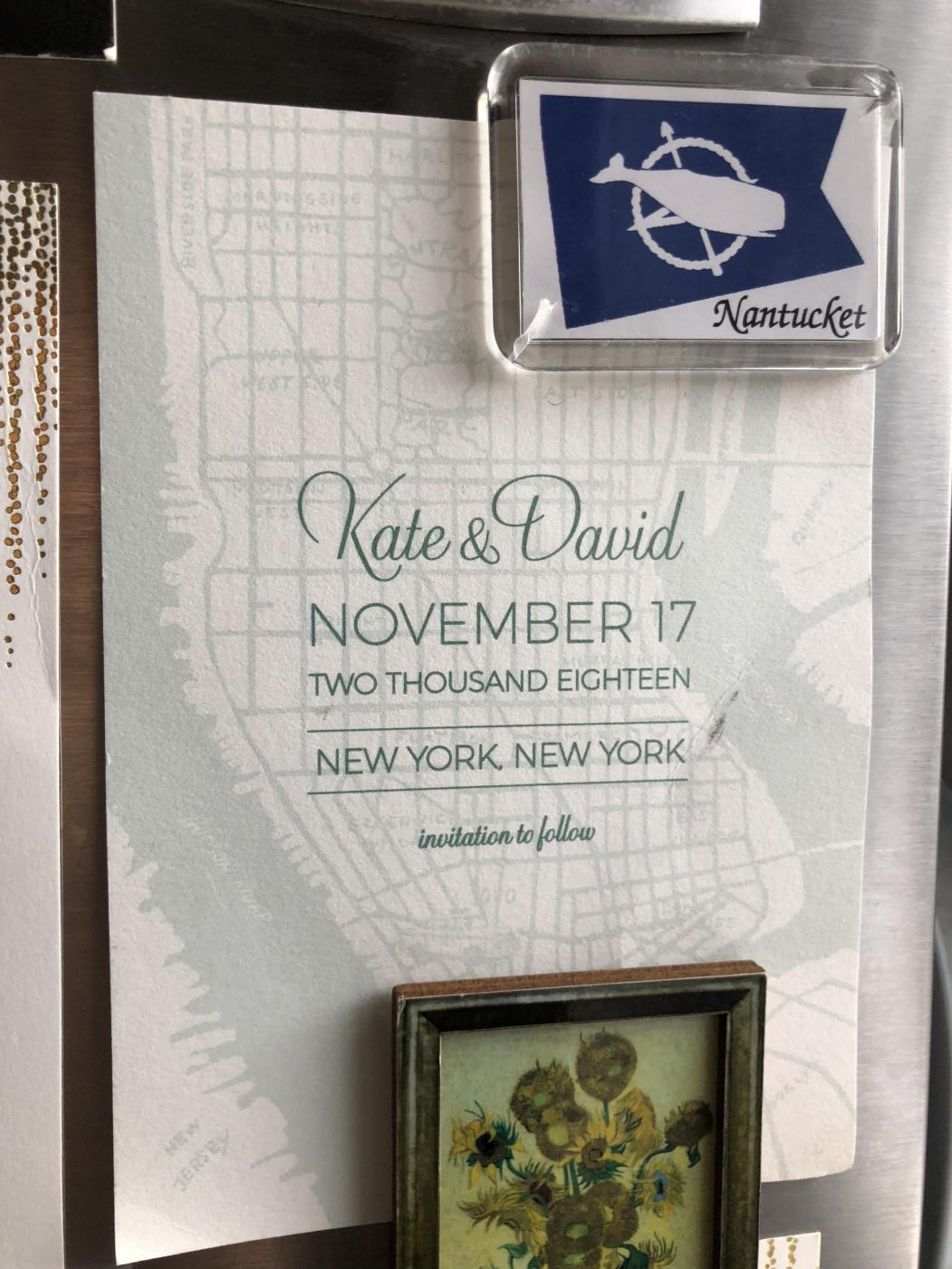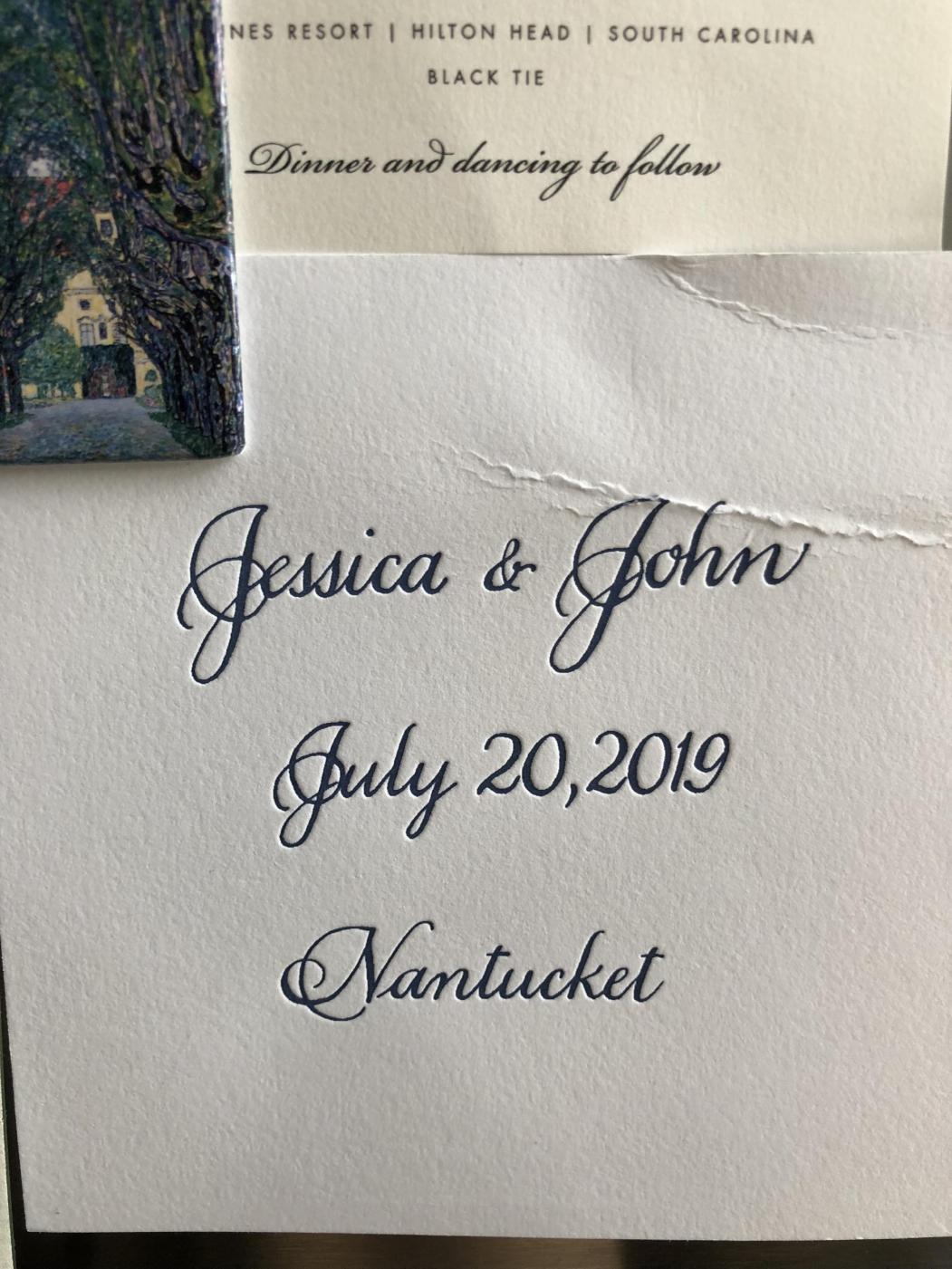
2 script font identifications please (Wedding cards)
hi, I am looking for help identifying the two following script fonts. I suspect the second is handwritten, however the j's are the same, so perhaps not? thanks so much in advance
The script face on the first sample is Biscotti (for both the names and “invitation to follow”).
No luck IDing the second script yet, but I am seeing enough variation in the letters to suspect that it is, as you said, handwritten.